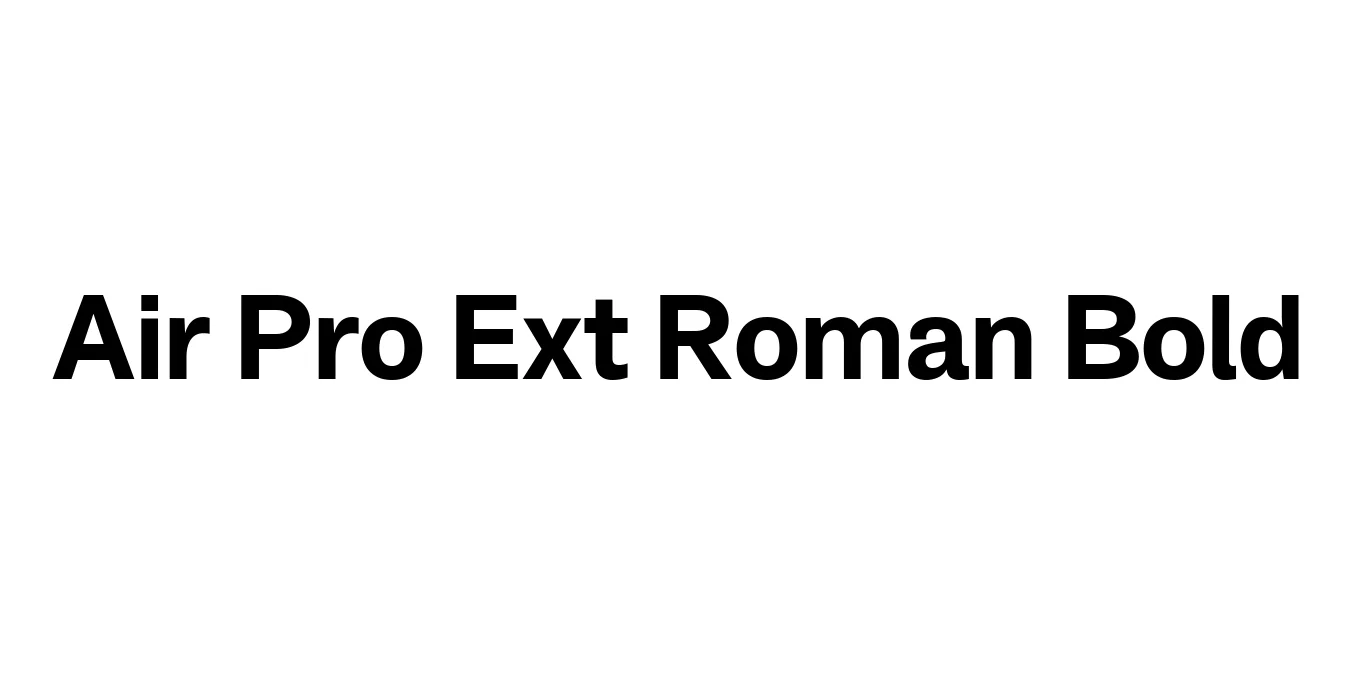
Air Pro Ext Roman Bold
Designed by Neil Summerour
| Similar Fonts | Helvetica Extended, Microgramma, Trade Gothic Extended |
Air Pro Ext Roman Bold is a sophisticated member of the expansive Air family, meticulously crafted by renowned designer Neil Summerour. The typeface is characterized by its emphasis on openness and the deliberate use of negative space, creating a visual rhythm that feels modern and breathable. This specific extended bold variant pushes the boundaries of horizontal proportions, offering a cinematic and authoritative presence that is ideal for high-impact communication.
The history of the Air Pro series is rooted in the pursuit of a versatile geometric sans-serif that avoids the sterile nature of many mid-century predecessors. By focusing on refined kerning and structural integrity, Summerour developed a font that excels in both digital and physical environments. Its bold, extended weight has become a favorite among creative directors for luxury branding, editorial spreads, and large-scale architectural signage where clarity and style must coexist seamlessly.
Air Pro Ext Roman Bold Best Uses
Excellent for luxury logotypes and corporate identity systems that require a wide, stable feel.
Perfect for high-impact titles in magazine layouts and promotional posters.
Highly effective for architectural and environmental graphics due to its legibility and width.
Great for cinematic banner ads and hero images where bold typography is the focal point.